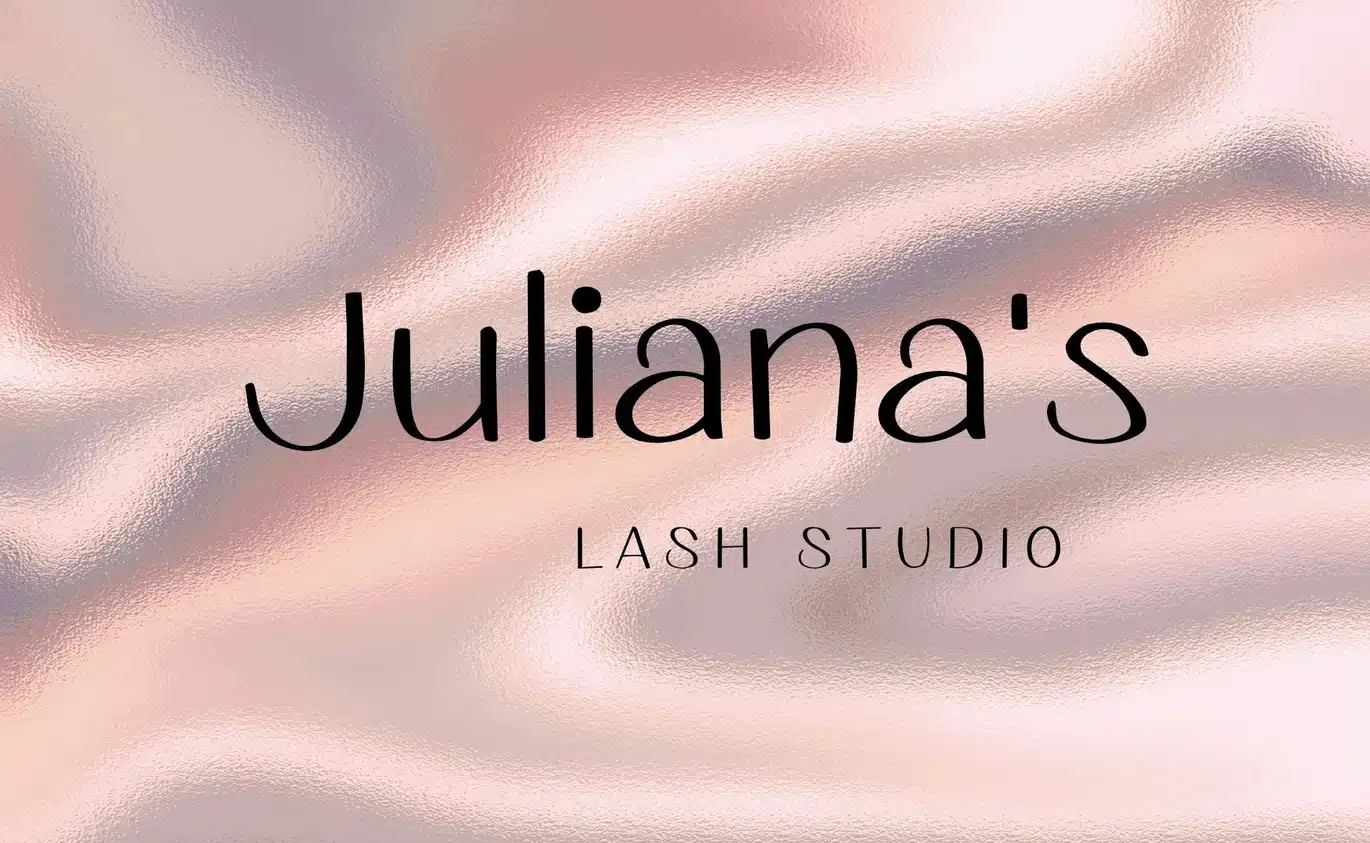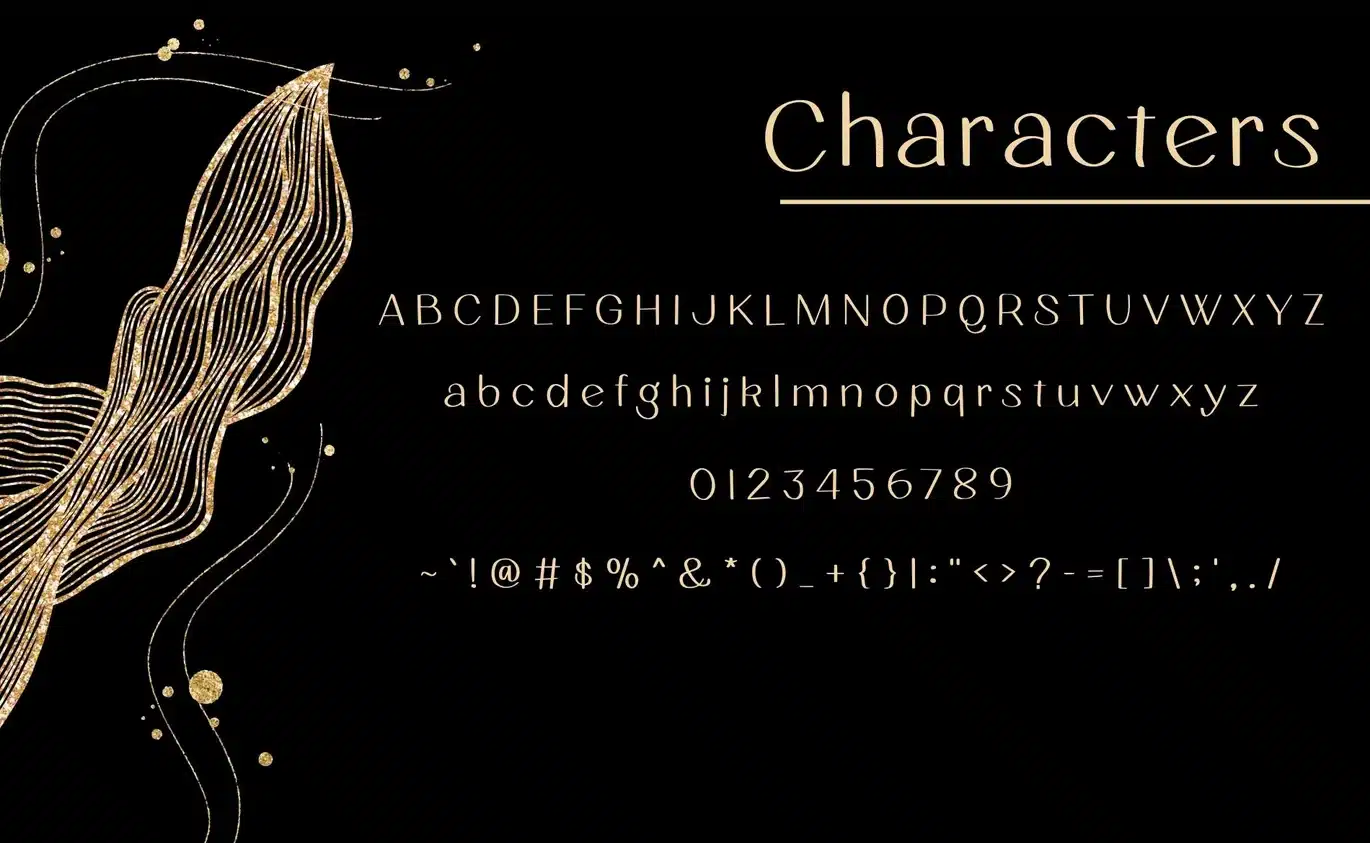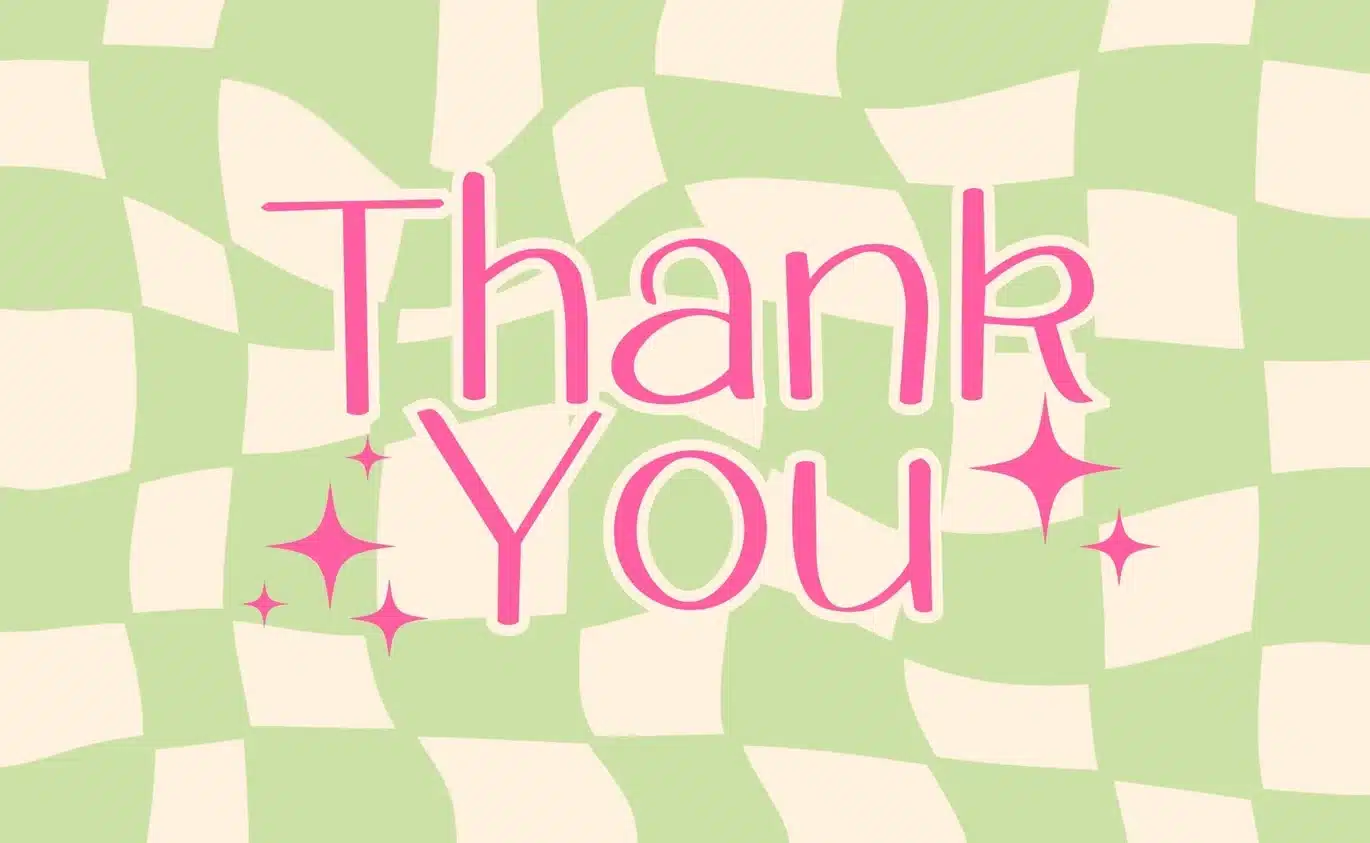
Mogev is a cool and playful display font. It is the best choice for creating eye-catching branding, logos, and quotes. Every letter has a beautiful and unique touch, which will make your designs come alive.
Mogev includes a complete set of uppercase and lowercase letters, as well as numbers, and punctuation.